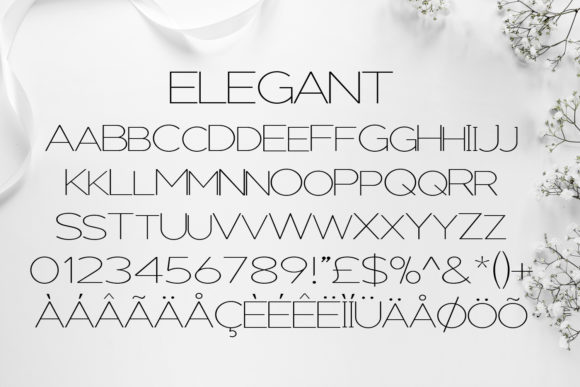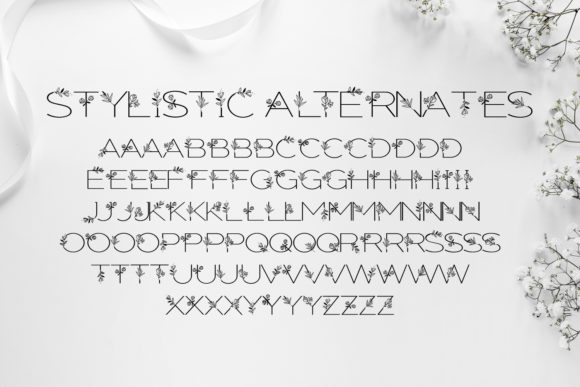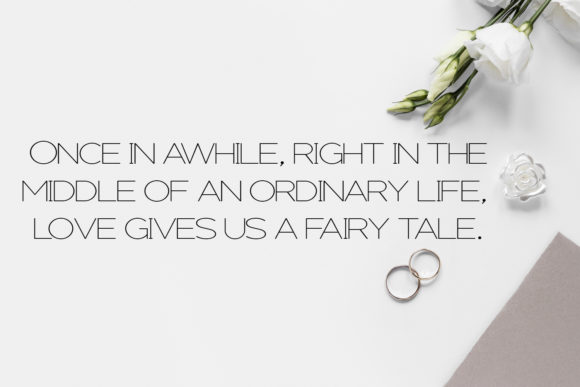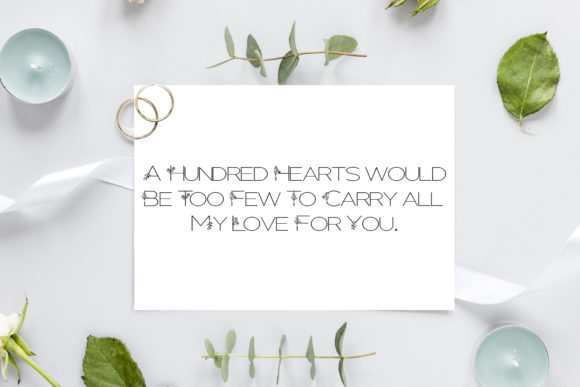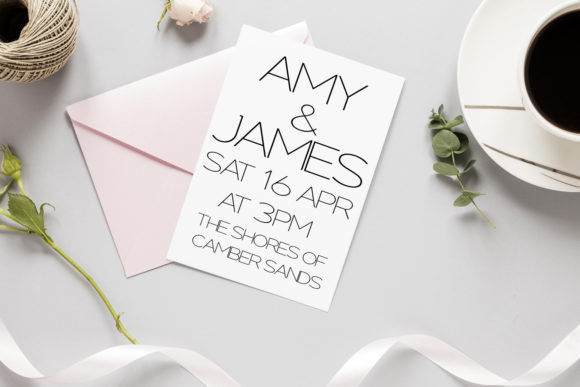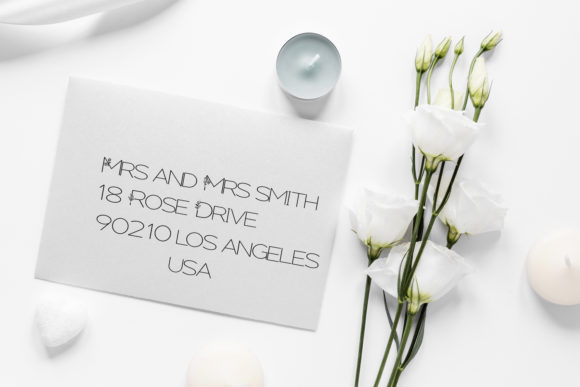
Elegant Font: The Perfect Choice for Your Wedding and Invitation Projects
Are you looking for a font that exudes elegance and sophistication for your wedding or invitation projects? Look no further than the Elegant font. This beautiful decorative font is perfect for creating stunning invitations, table numbers, place cards, and more. In this article, we’ll take a closer look at the Elegant font and explore its features, uses, and benefits.
What is Elegant Font?
Elegant is a cute and sweet decorative font that features gorgeous flower-themed characters. The font is designed to add a touch of elegance and whimsy to your projects, making it perfect for wedding-related designs, invitations, and other special occasions. The font’s beautiful and intricate design will make your projects stand out and leave a lasting impression.
Key Features of Elegant Font
- Flower-themed characters: The Elegant font features beautiful flower-themed characters that add a touch of elegance and sophistication to your projects.
- Cute and sweet design: The font has a cute and sweet design that is perfect for wedding-related projects, invitations, and other special occasions.
- Decorative style: The Elegant font has a decorative style that is perfect for creating stunning invitations, table numbers, place cards, and more.
Uses of Elegant Font
The Elegant font is perfect for a variety of projects, including:
- Wedding invitations: Create stunning wedding invitations that set the tone for your special day.
- Table numbers: Use the Elegant font to create beautiful table numbers for your wedding reception or event.
- Place cards: Create elegant place cards that add a touch of sophistication to your event.
- Party invitations: Use the Elegant font to create cute and sweet party invitations for kids’ parties, baby showers, and more.
Benefits of Using Elegant Font
There are many benefits to using the Elegant font for your projects. Here are a few:
- Unique and creative: The Elegant font is a unique and creative way to add a touch of elegance and sophistication to your projects.
- Customizable: The Elegant font can be customized to fit your project’s needs, making it perfect for a variety of designs.
- High-quality: The font is high-quality and will make your projects look professional and polished.
Tips for Using Elegant Font
Here are a few tips for using the Elegant font:
- Use it sparingly: Use the Elegant font sparingly to add a touch of elegance and sophistication to your projects.
- Pair it with other fonts: Pair the Elegant font with other fonts to create a unique and creative look.
- Experiment with colors: Experiment with different colors to find the perfect combination for your project.
- Have fun: Most importantly, have fun and be creative when using the Elegant font.
| Font Name | Elegant Font |
The Elegant font is a beautiful and elegant decorative font that is perfect for wedding-related projects, invitations, and other special occasions. Its gorgeous flower-themed characters and cute and sweet design make it a unique and creative way to add a touch of elegance and sophistication to your projects. Whether you’re a designer or crafter, the Elegant font is a great choice for your next project.